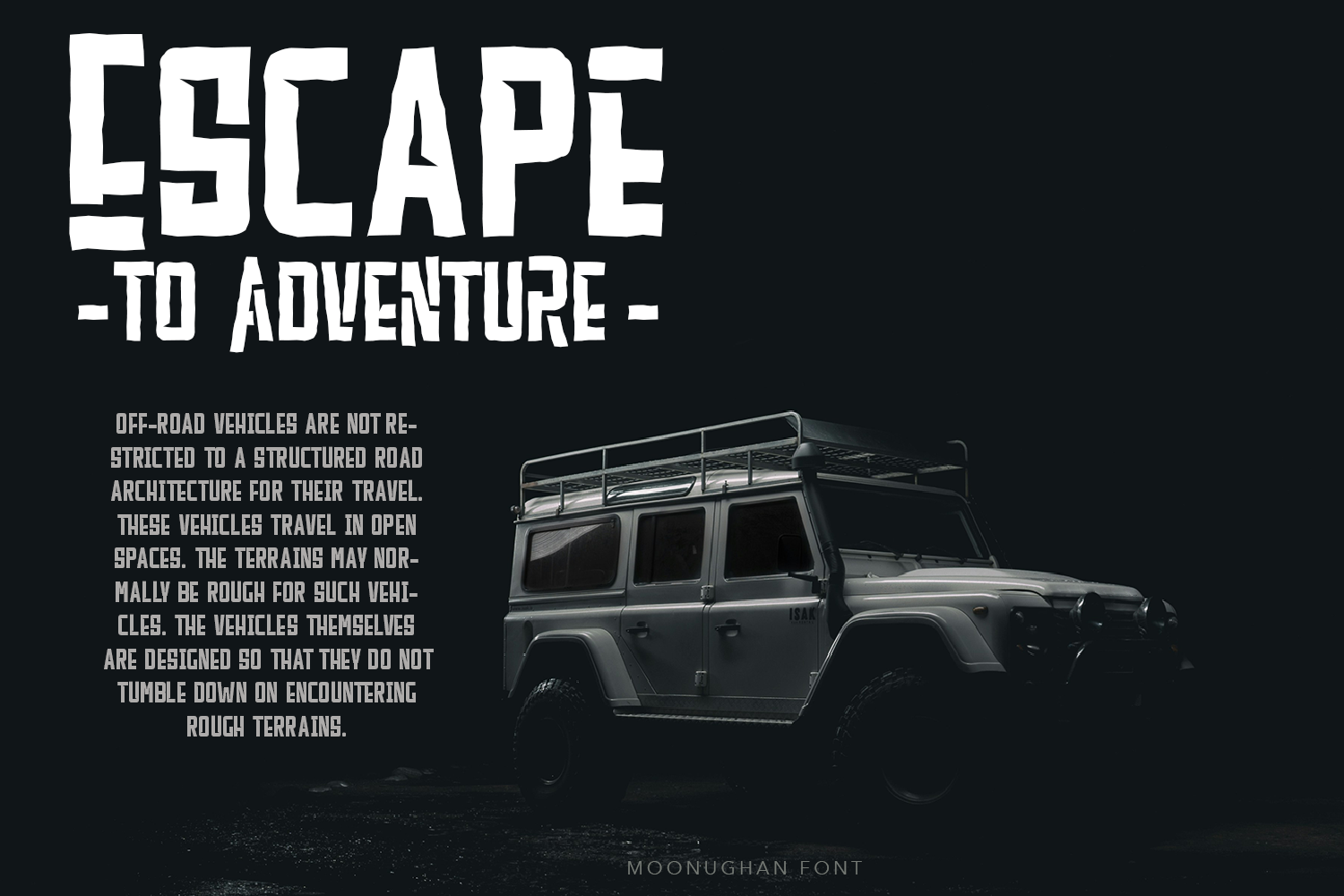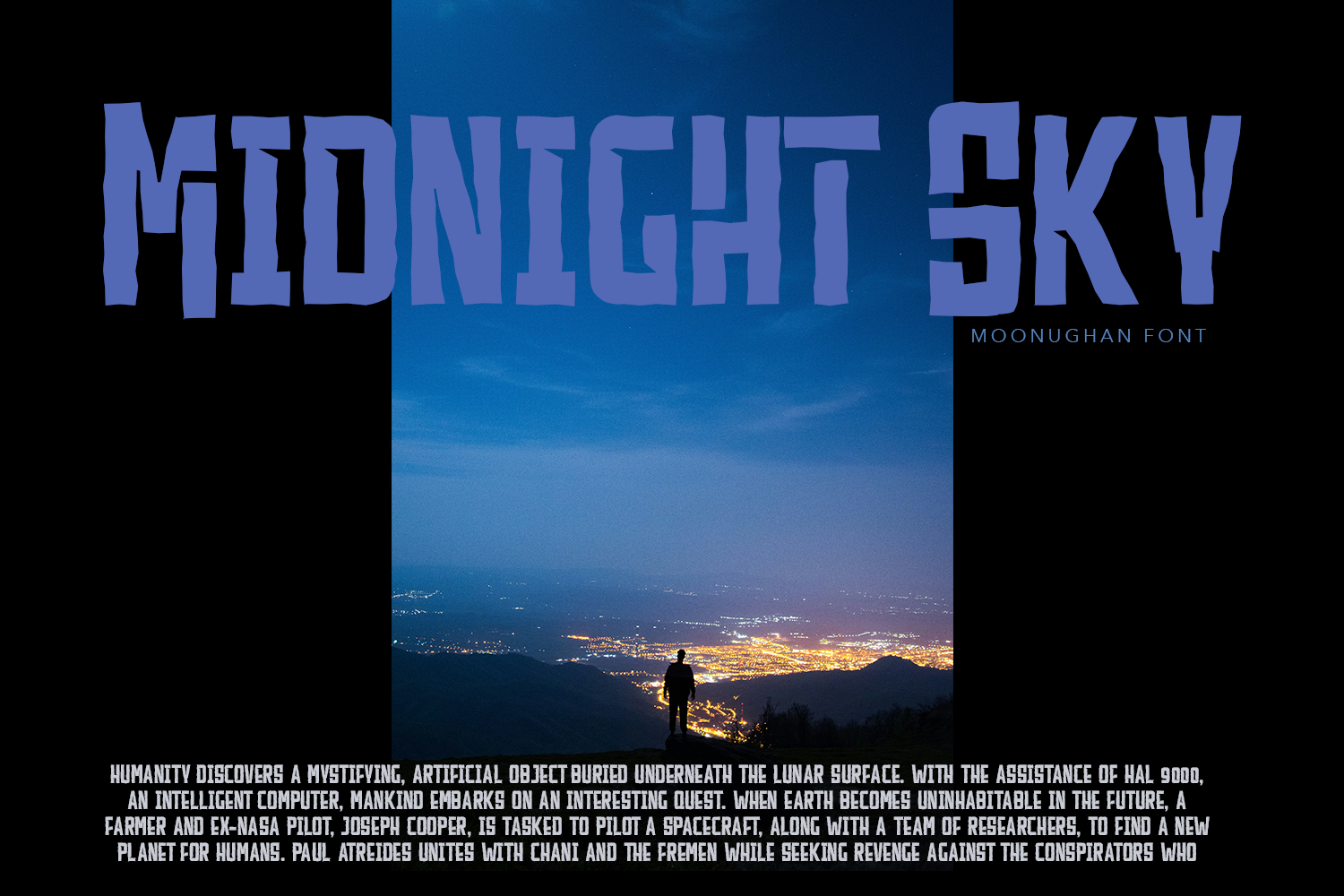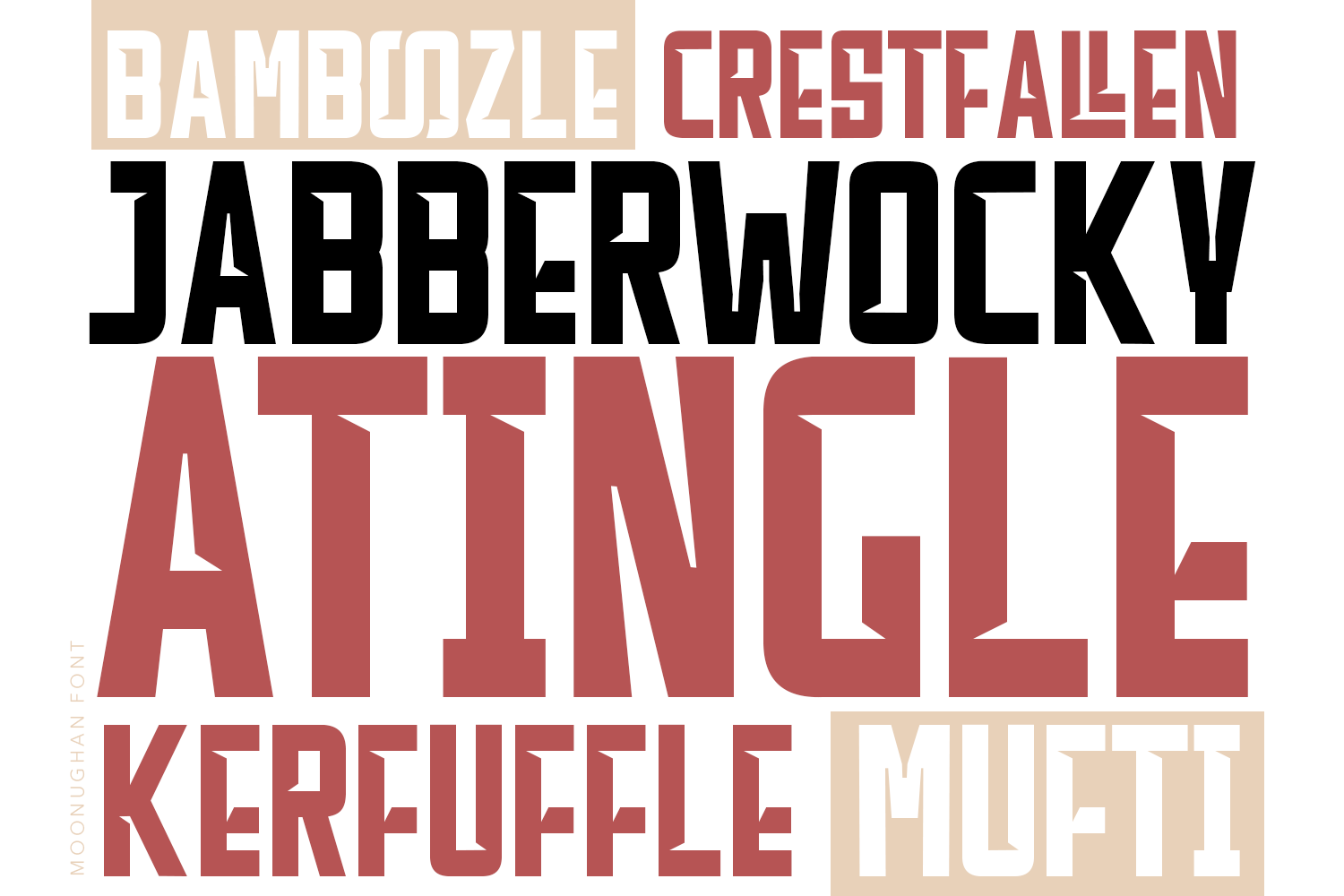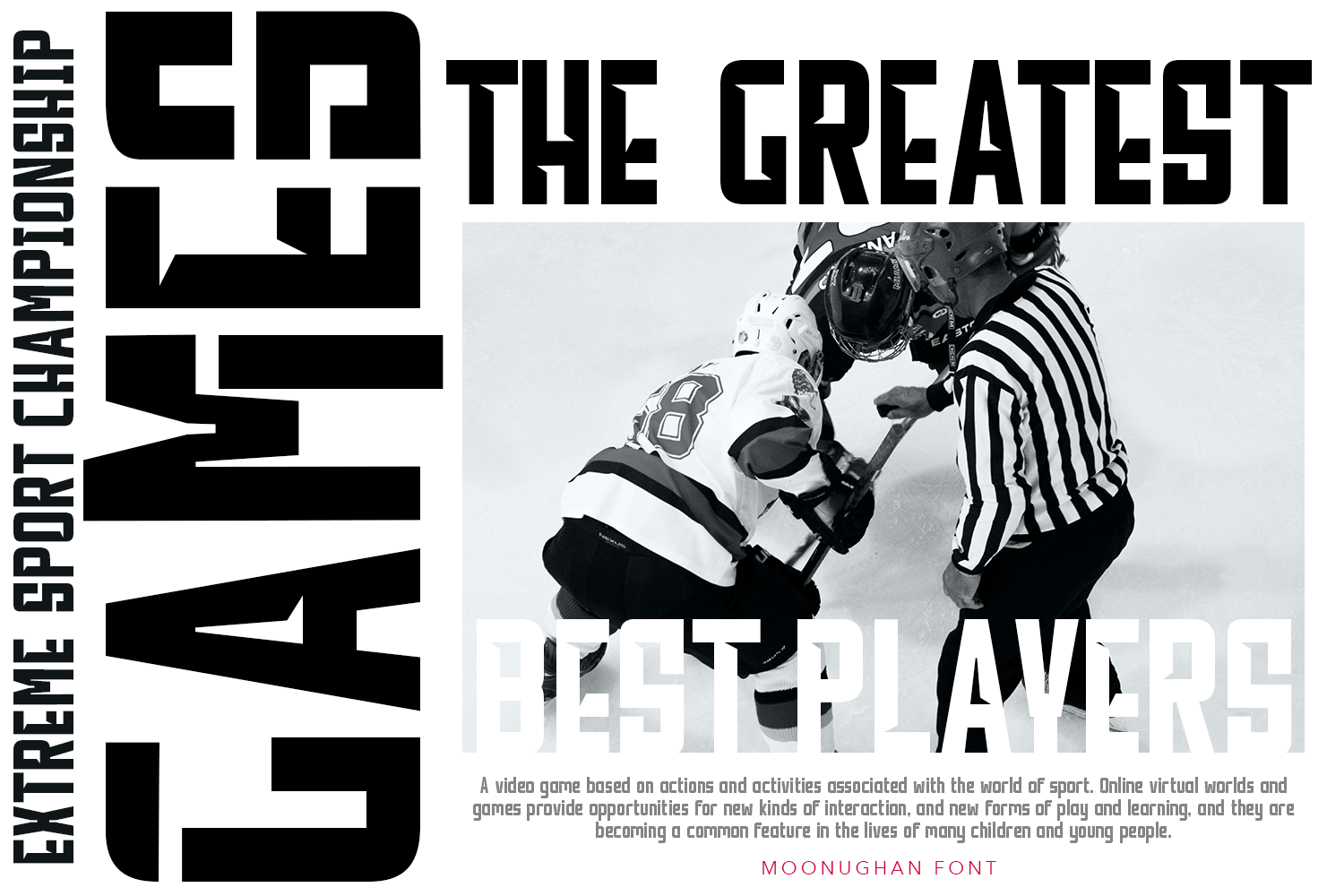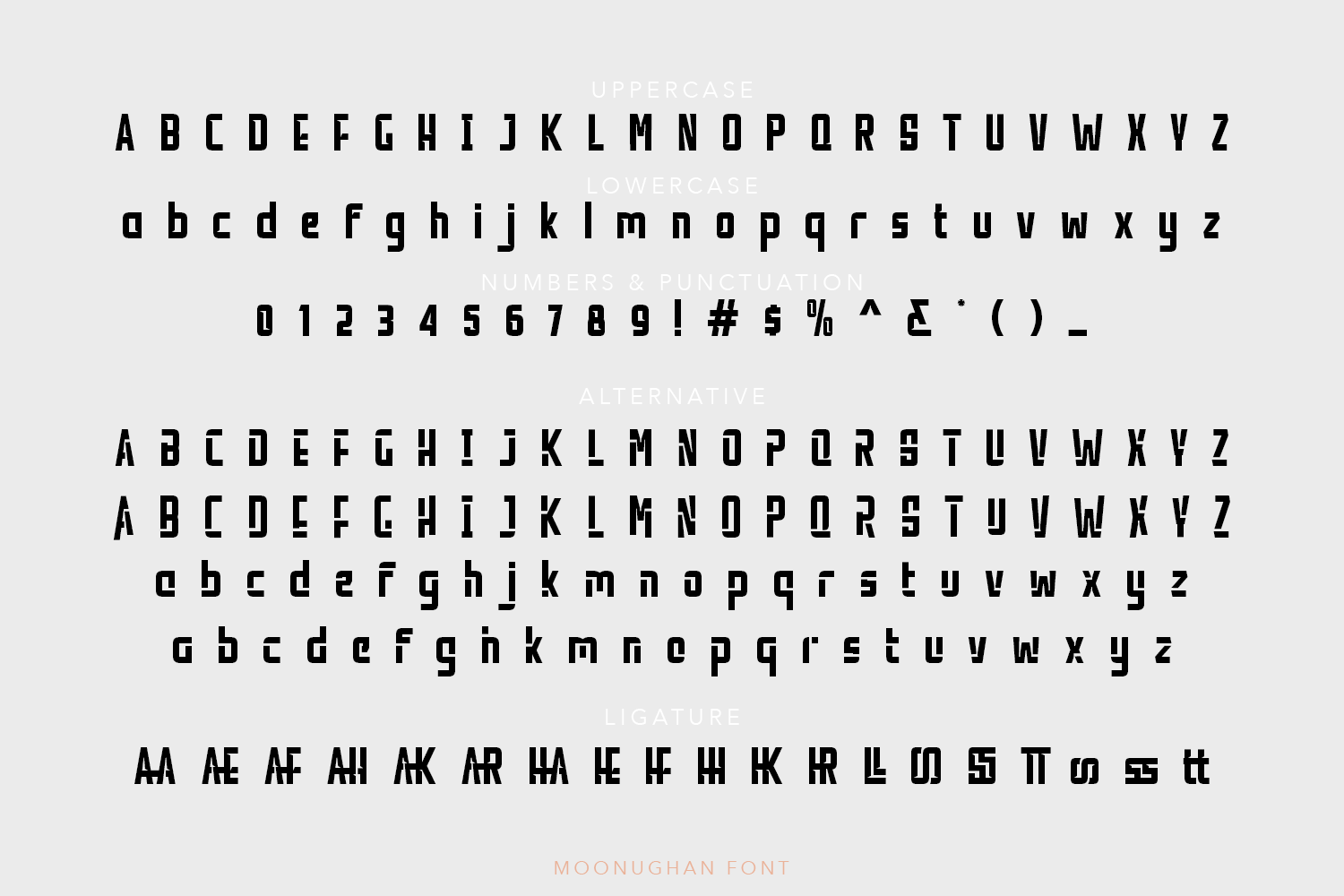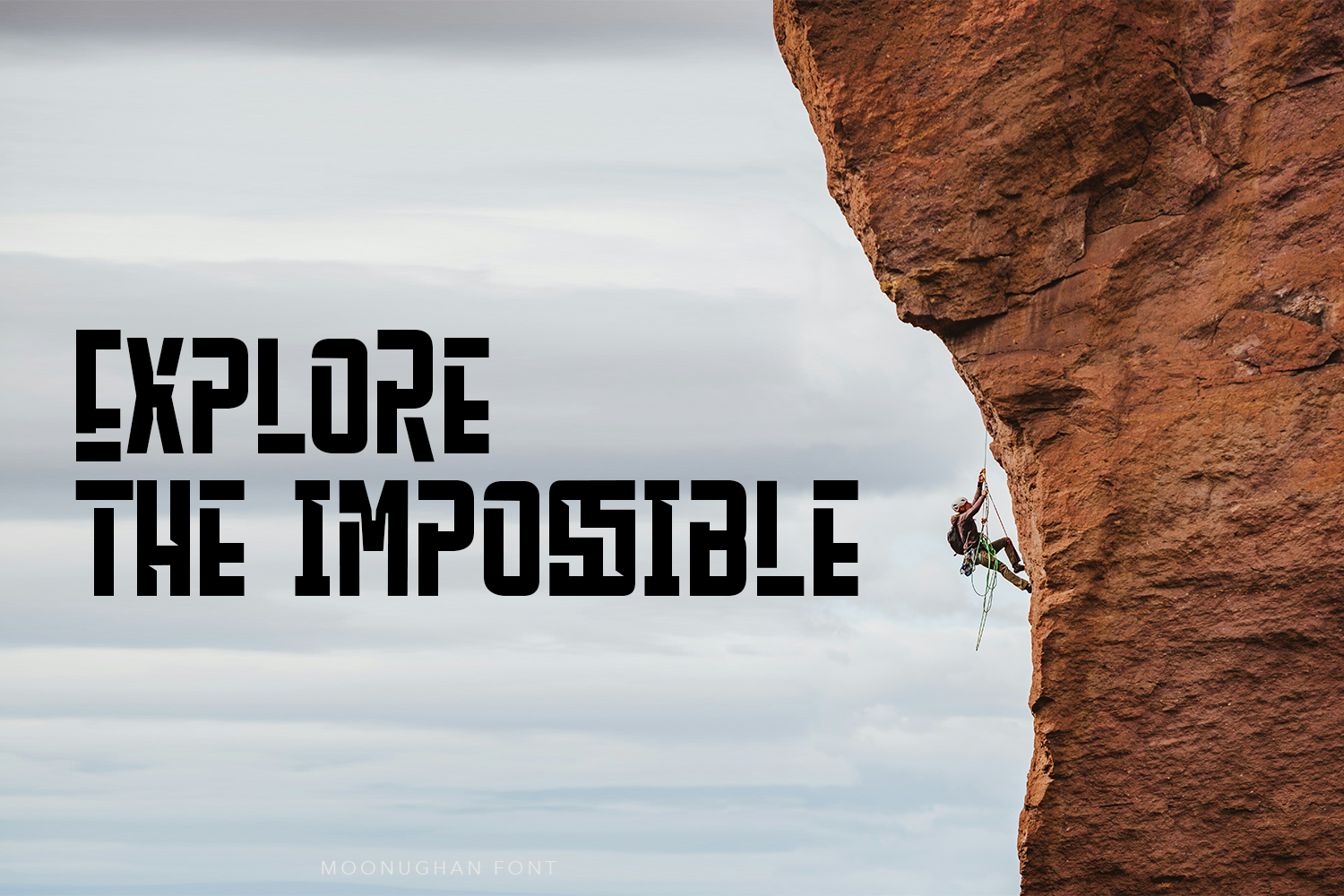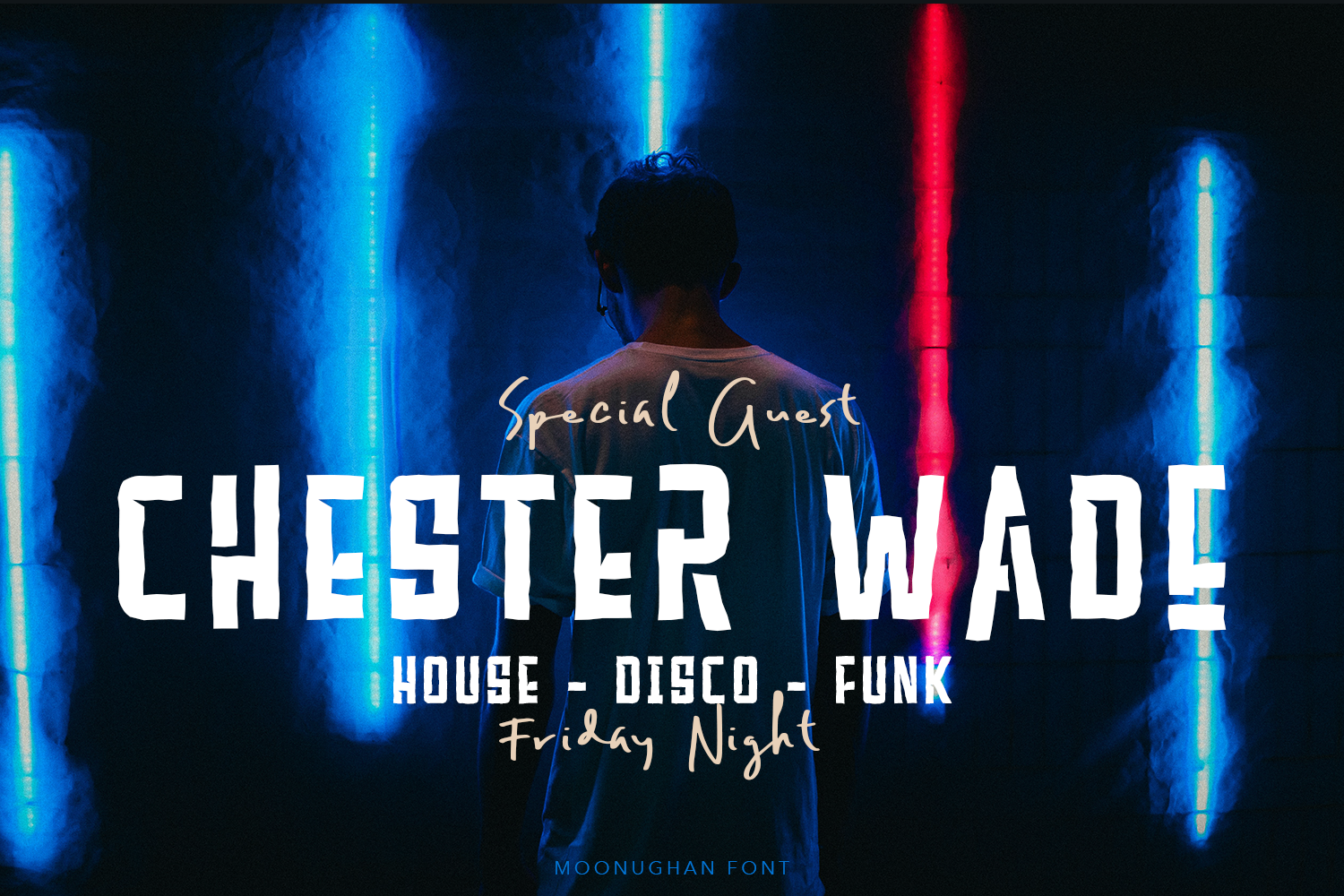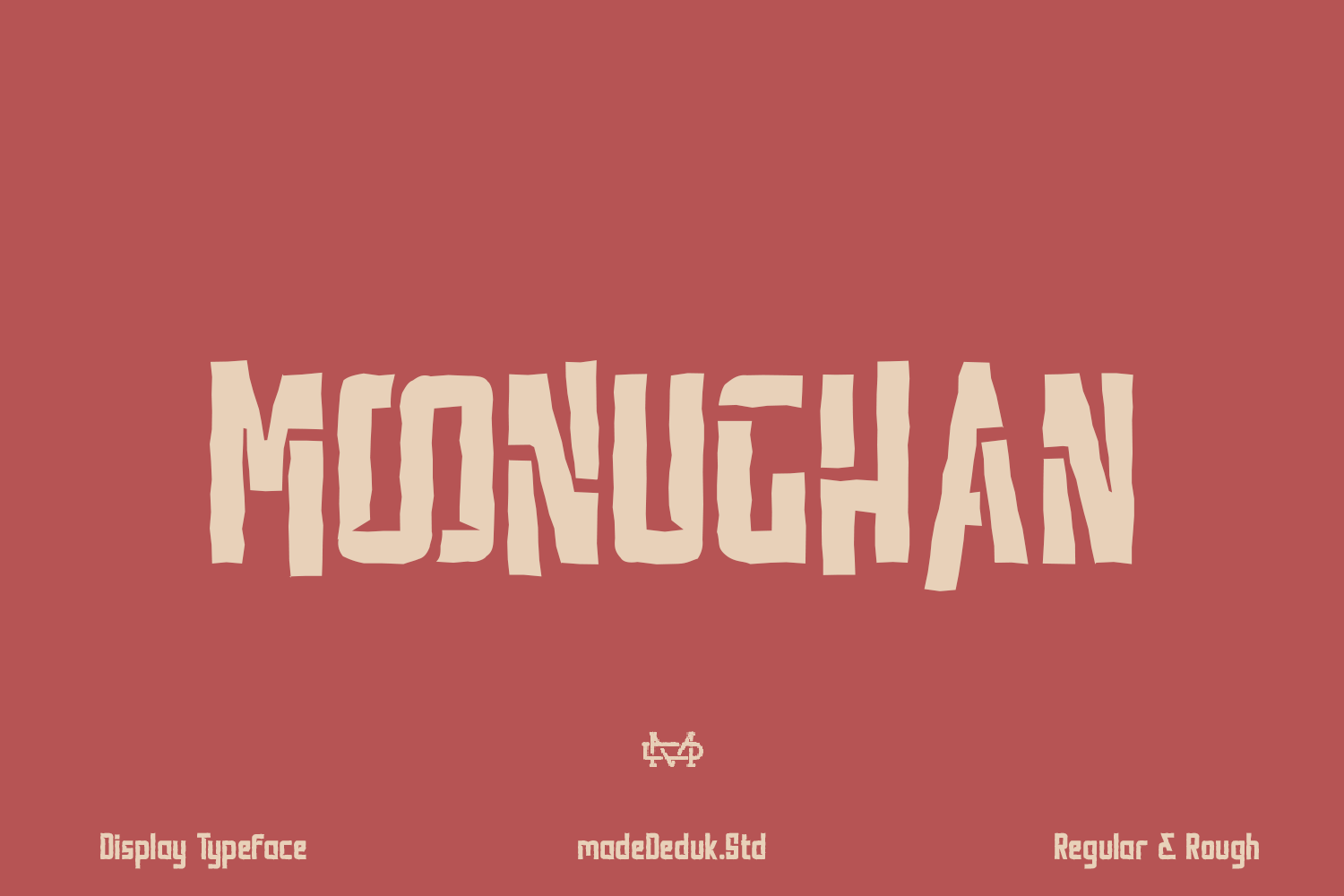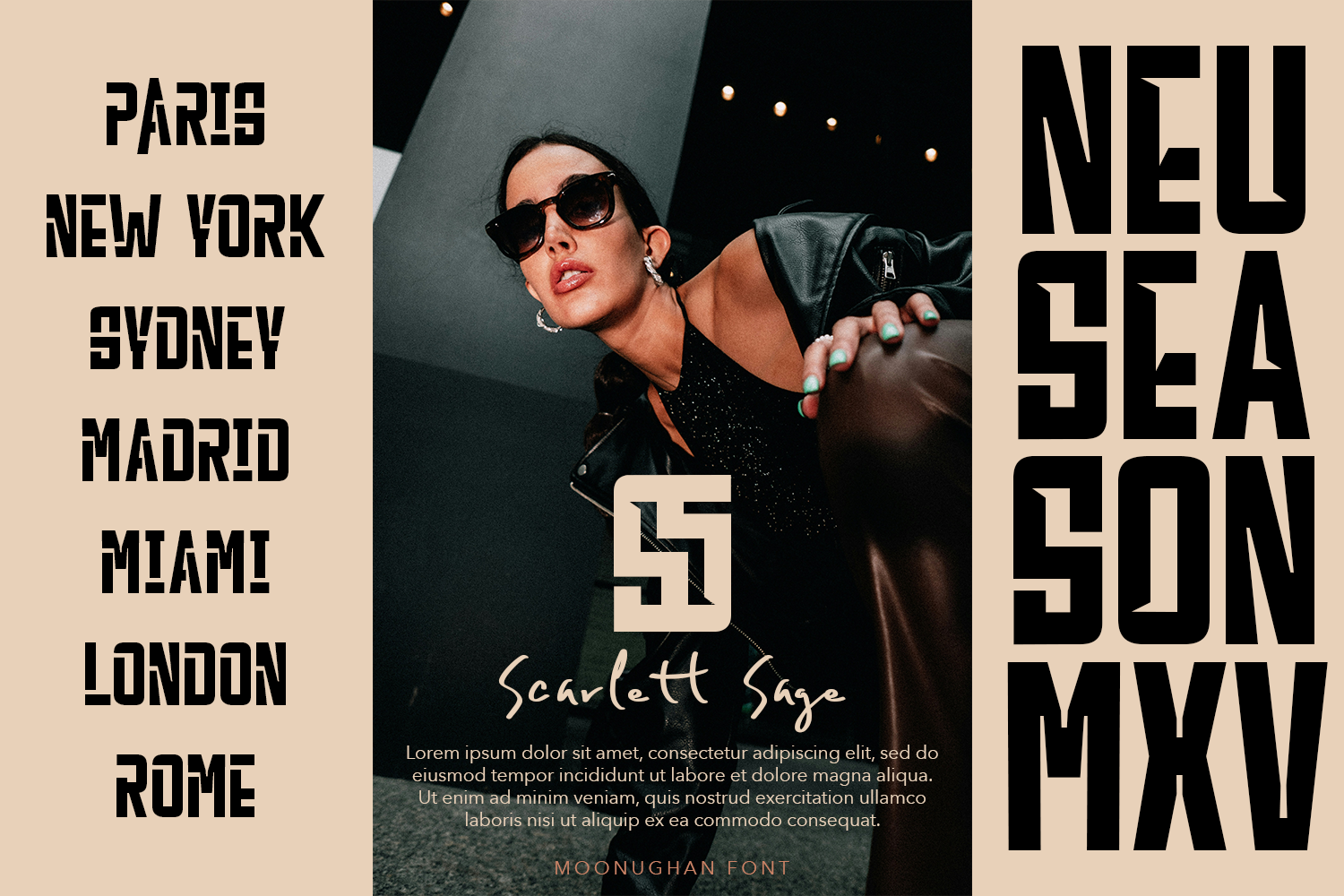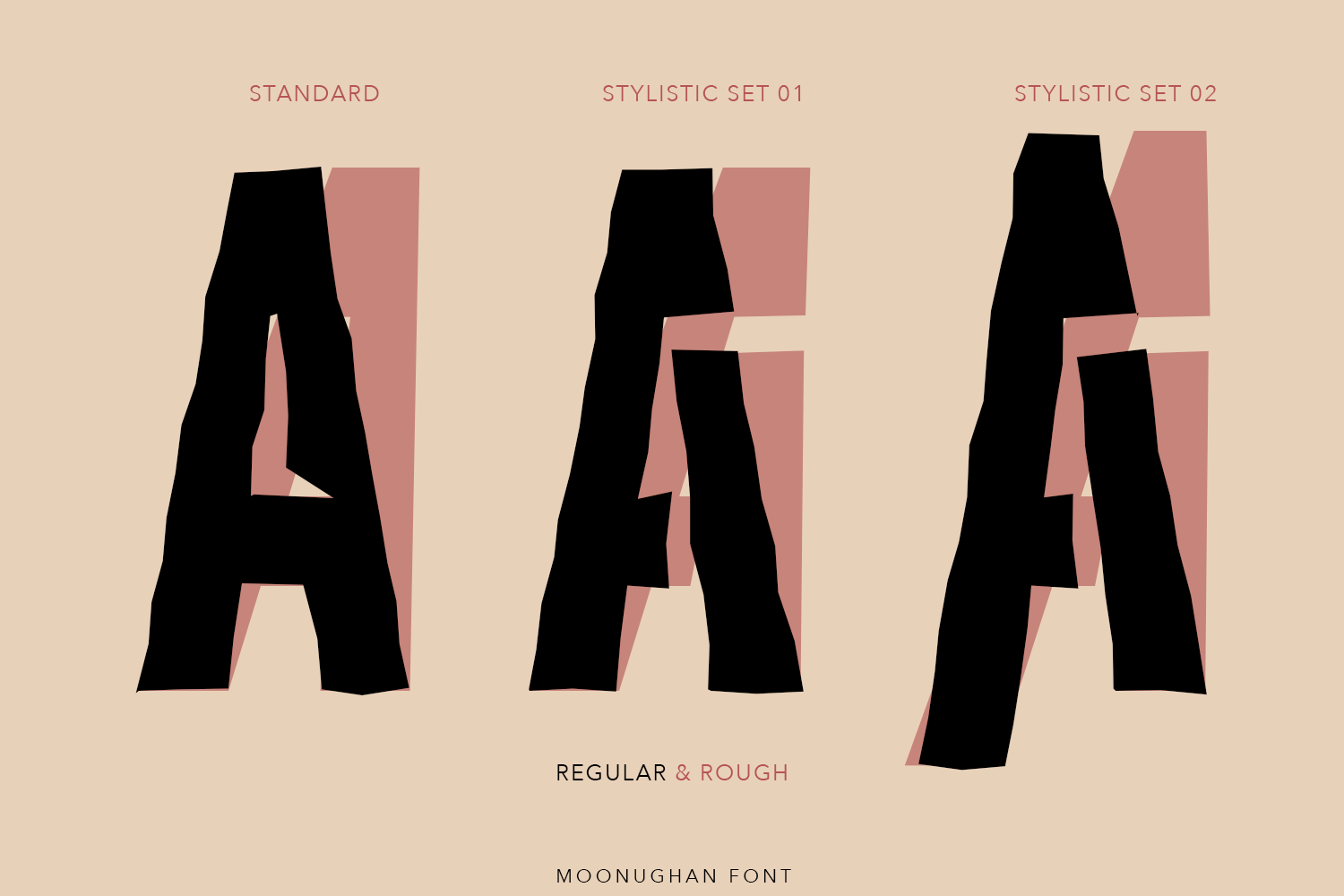
Moonughan Font
Introducing Moonughan display typeface, regular and rough packed with different ligatures and stylistic alternates making it easy to create unique characteristics to your projects. This font is the ultimate choice for creating stunning logos and headlines. Perfect for branding, posters, apparel, magazine, labels and much more.
Featured:
- Number & Symbol
- International Glyphs
- Ligature
- Alternative